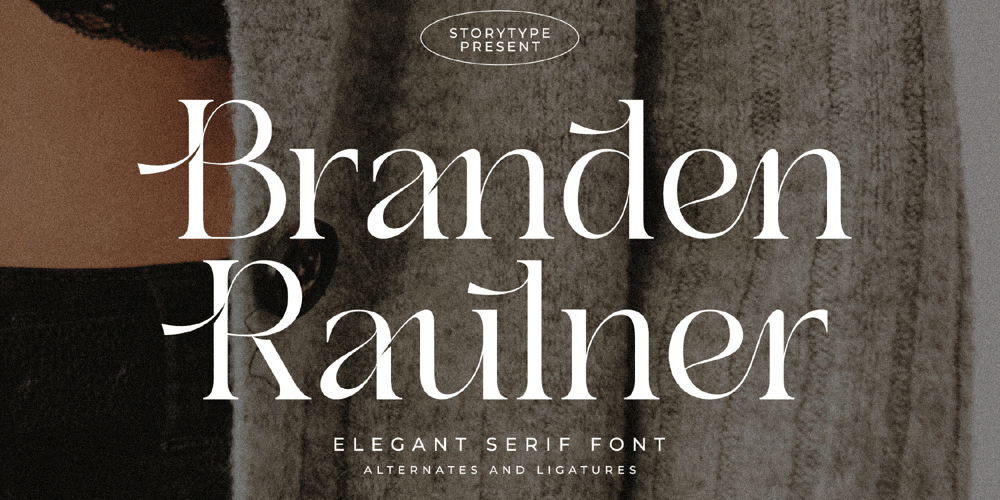
Branden Raulner Font Family was designed by Heru Utama Putra and published by Letterena Studios. Branden Raulner contains 2 styles and family package options. Branden Raulner is a stylish and interesting serif font. It is defined by smooth curves and is perfect for fashion branding or editorial designs. Use this font for your designs and explore its endless possibilities.